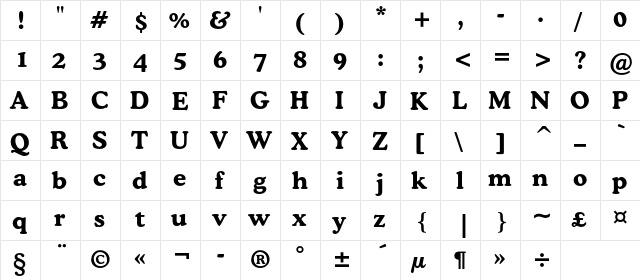
CooperLightC BT Bold Font Preview
CooperLightC BT Bold
CooperLightC BT Bold Font Details
Design Context for CooperLightC BT Typeface
CooperLightC BT takes a measured approach to typography — its balanced proportions and neutral character make it a reliable workhorse for both digital and print work. The heavy weight commands attention and anchors typographic hierarchies.